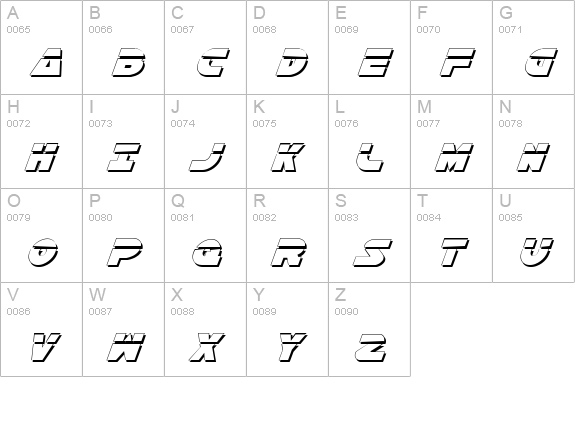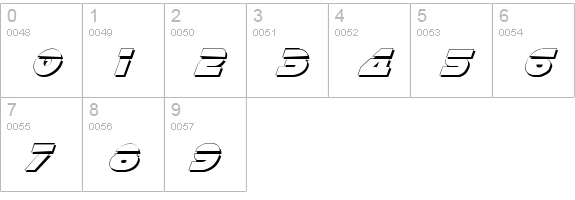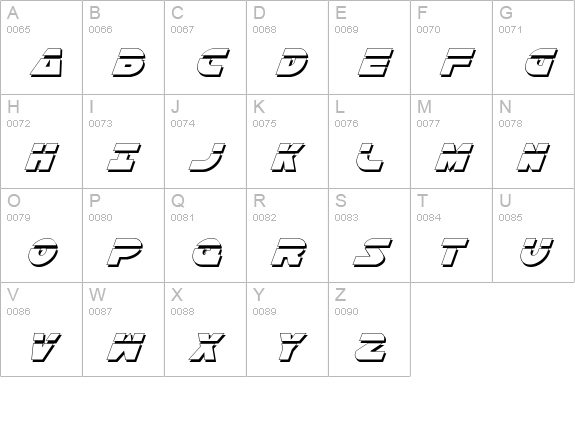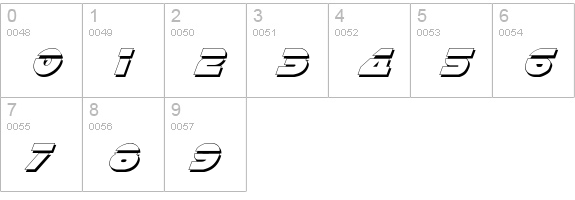
Han Solo Shadow LasItal Font Details
Introducing the Han Solo Shadow LasItal font, a striking typeface that captures the essence of Han Solo's adventurous spirit and rugged charm. With its bold yet elegant design, this font is perfect for adding a touch of galactic flair to any project. Han Solo Shadow LasItal is a versatile font that can be used for both display and body text, making it ideal for a wide range of applications. Whether you're designing a movie poster, creating a logo, or crafting a sci-fi inspired website, this font will bring your designs to life. One of the best features of Han Solo Shadow LasItal is that it is available for free. That's right, you can download this font at no cost from FontsMarket.com. This means that you can use it in personal and commercial projects without breaking the bank. With Han Solo Shadow LasItal, you can channel your inner space adventurer and create stunning designs that will leave a lasting impression. So don't miss out on this amazing opportunity to enhance your creative projects with this freely available font. Download Han Solo Shadow LasItal today and let your imagination soar to new galaxies.